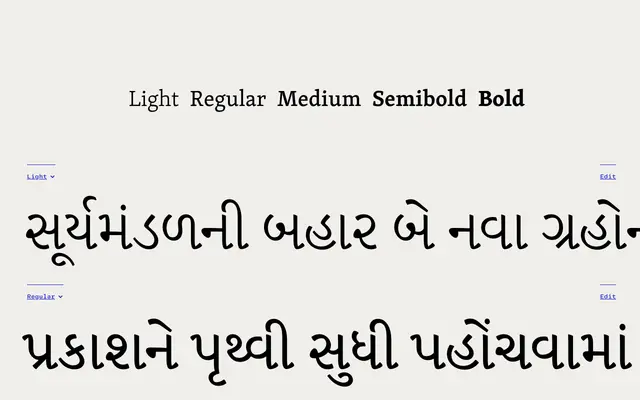
Skolar Gujarati
Rosetta · David Březina · 2012
A text serif for the Gujarati script by David Březina, developed from historical and modern Gujarati letterform research for academic and professional publishing.
Designed by David Březina following investigation of historical and modern Gujarati printing, the family covers five weights from Light to Bold and supports Gujarati, Kachchi, Avestan and Sanskrit alongside a full Latin complement. An expansive glyph set includes conjuncts, half-forms, contextual matra variants and both Gujarati and Latin numerals, making it suitable for multilingual scholarly and editorial work. It is part of the broader Skolar type system alongside Skolar PE and Skolar Devanagari, collectively covering over four hundred languages.
A text serif designed for the Gujarati script with humanist modulation principles; companion to Skolar PE and rooted in traditional Gujarati letterform conventions while incorporating contemporary typographic refinement.